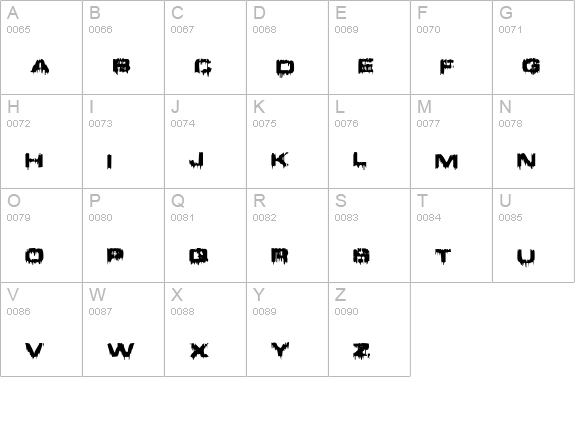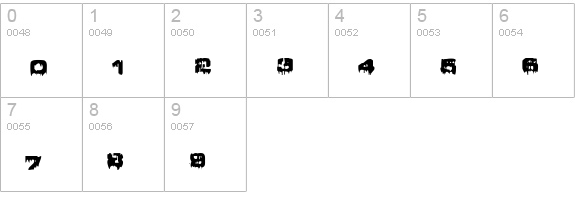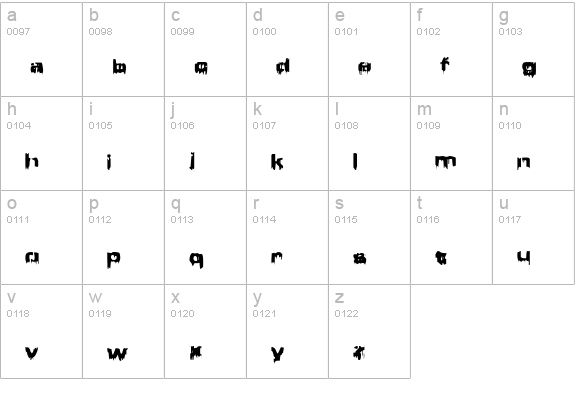
Brain Damage font is a bold and edgy display typeface that exudes a sense of rebelliousness and modernity. With its sharp angles and futuristic aesthetic, this font is perfect for making a statement and grabbing attention. The unique design of Brain Damage font is sure to set your designs apart and leave a lasting impression on viewers. Best of all, Brain Damage font is completely free to download at FontsMarket.com. Whether you're working on a poster, logo, or social media graphic, this font will add a touch of boldness and character to your projects. Don't miss out on the opportunity to enhance your designs with the striking and dynamic Brain Damage font. Download it now and let your creativity shine!